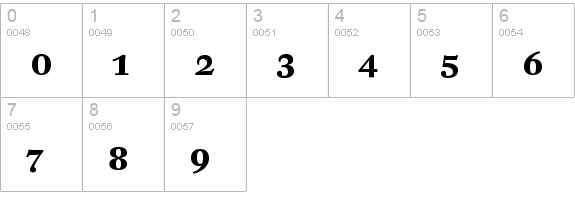
DTL Fleischmann D Bold Caps is a strong, high-contrast variant in the DTL typeface family \xE2\x80\x94 well suited to headlines, attention-grabbing titles, and strong calls-to-action.
DTL Fleischmann D Bold Caps is a striking and bold typeface designed for maximum impact in your design projects. With its strong, clean lines and distinctive uppercase characters, this font is perfect for headlines, titles, and other attention-grabbing text. The sharp details and bold strokes give DTL Fleischmann D Bold Caps a modern and sophisticated look, making it a versatile choice for a wide range of design applications. Best of all, DTL Fleischmann D Bold Caps is available for free download at FontsMarket.com. This means you can add this stylish and eye-catching font to your collection without any cost, making it a valuable resource for designers and creatives looking to elevate their projects. Whether you're working on branding, advertising, editorial design, or any other creative endeavor, DTL Fleischmann D Bold Caps is sure to make a bold statement and leave a lasting impression.